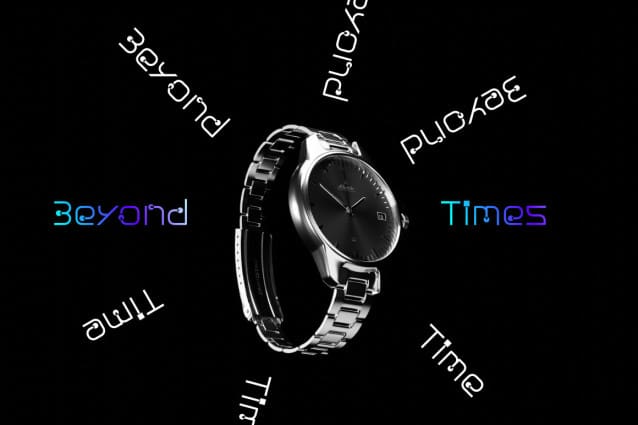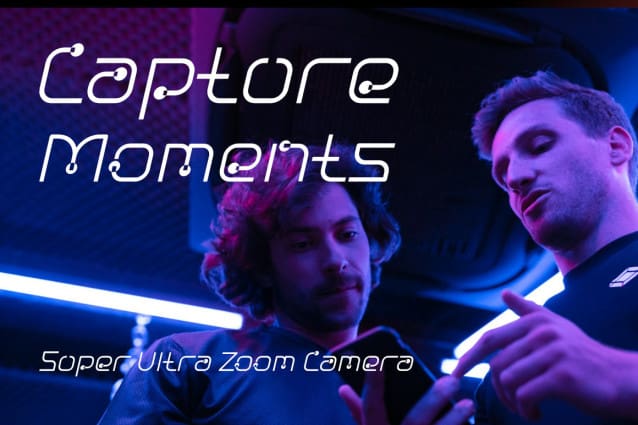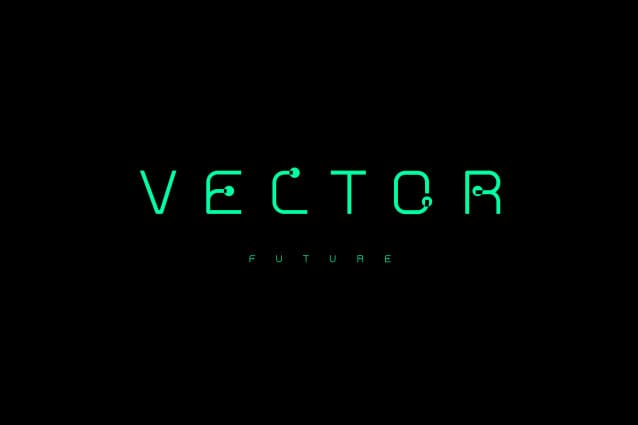
Nuixyber Inno Convert Typeface
Nuixyber Inno Convert Font is an authentic modern futuristic font that is perfect for professional and product branding needs. This font is suitable for any branding project such as quotes, logos, blog headers, posters, ribbons, letters, invitations, stationery, etc… It is designed to be versatile and flexible that can be used on a variety of projects and mediums. extraordinary in a variety of contexts.